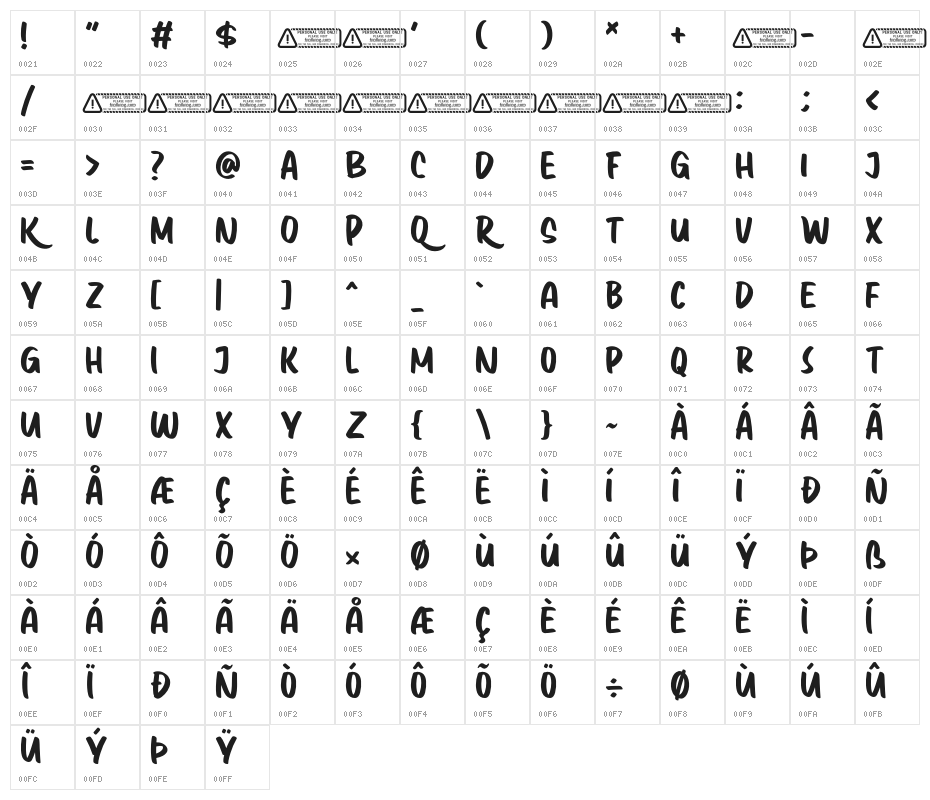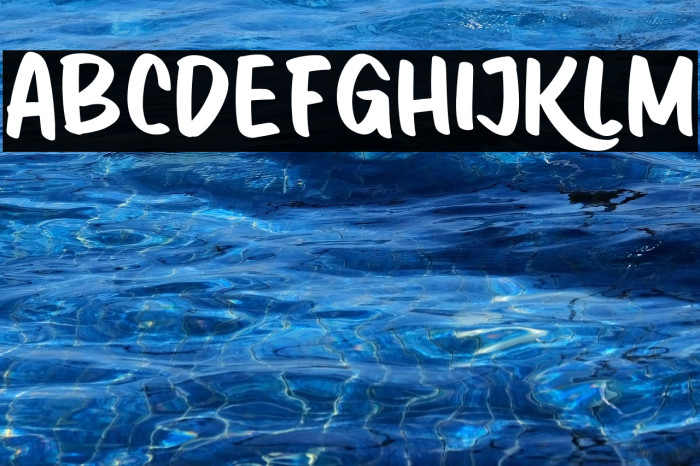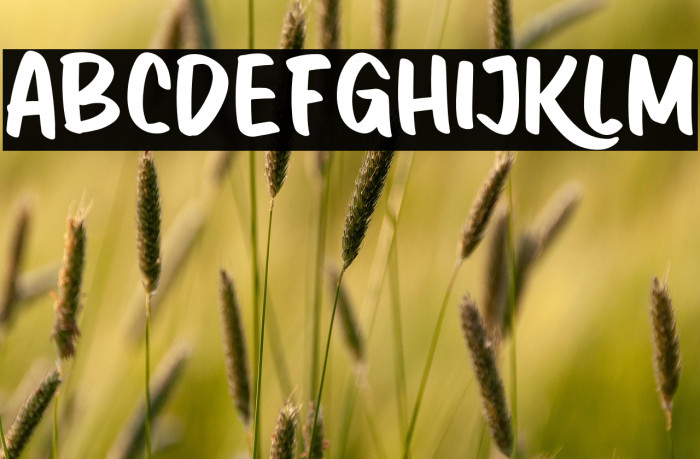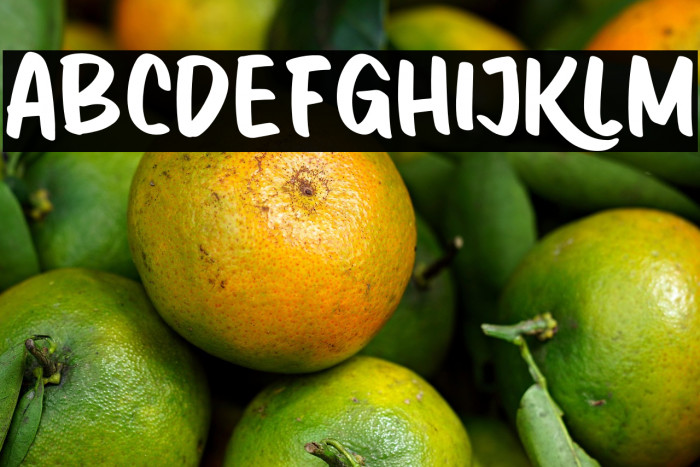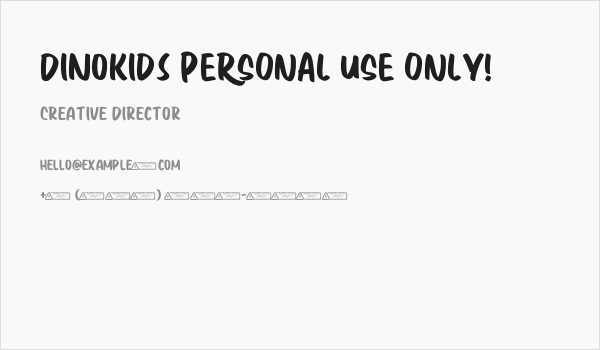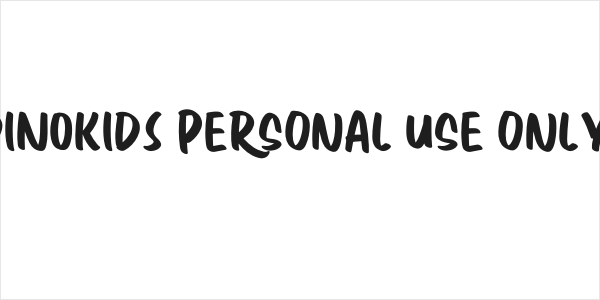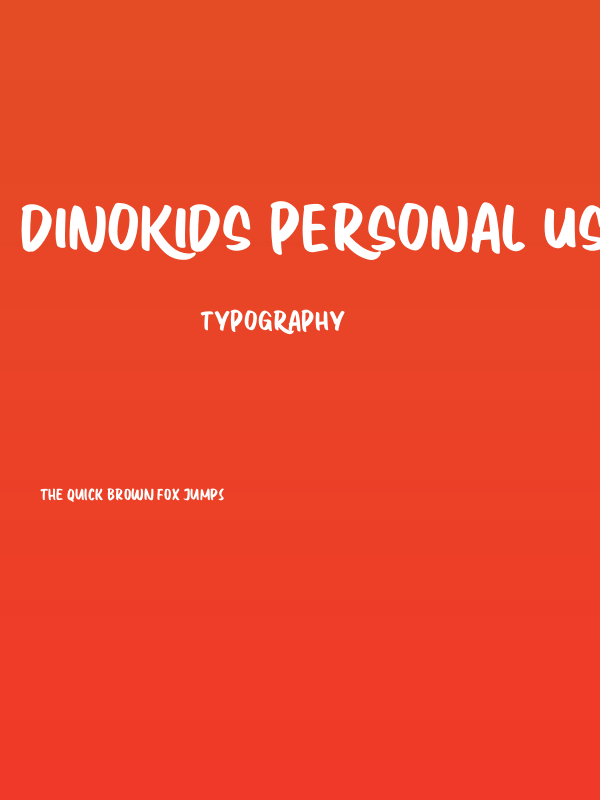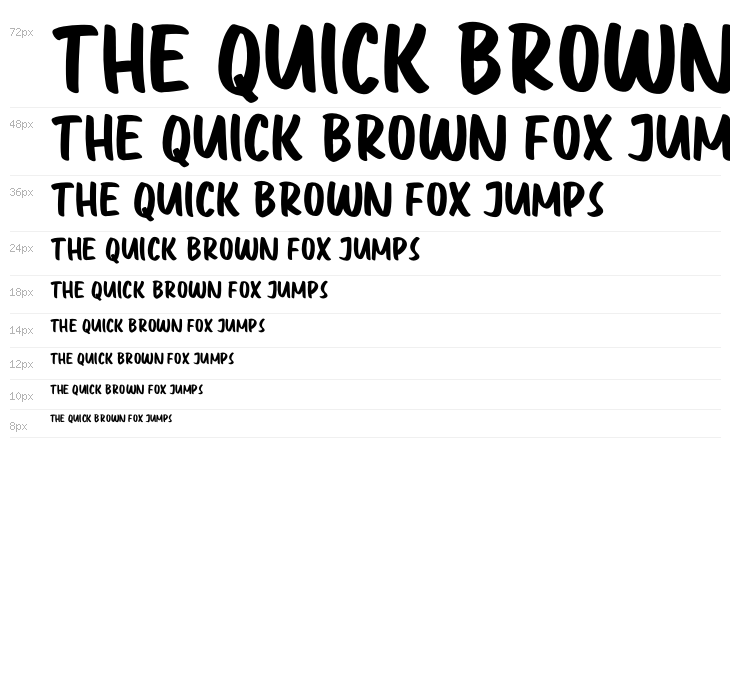
Dinokids PERSONAL USE ONLY! Font
Dinokids PERSONAL USE ONLY! Description
This playful and bold font features a handwritten style with a dynamic and energetic appearance. The uppercase letters are characterized by thick strokes and rounded edges, giving them a friendly and approachable look. The lowercase letters maintain the same lively style, with some letters exhibiting unique flourishes that add to the font's whimsical nature. The numbers and special characters are consistent with the overall design, ensuring a cohesive appearance across all text. This font is perfect for projects that require a fun and informal touch, such as children's books, playful branding, or casual invitations.
| Proposed Projects | Ideal for children's books, playful branding, casual invitations, and any project needing a fun, informal touch. |